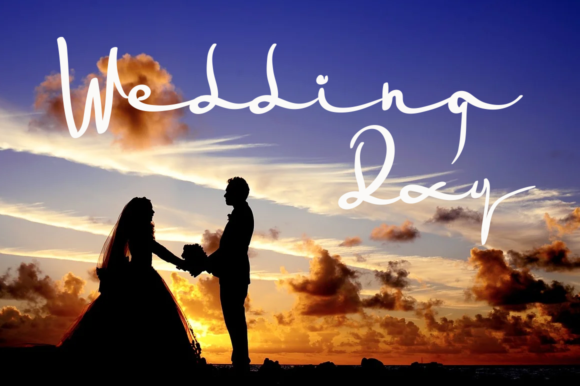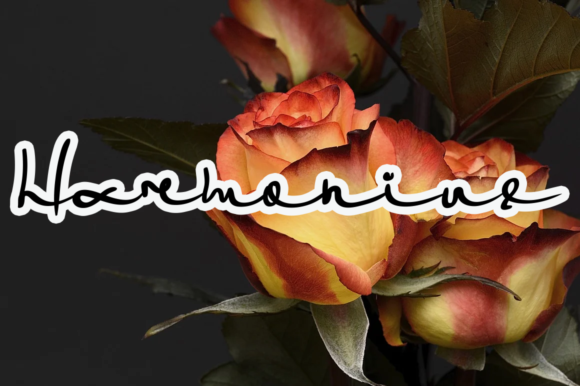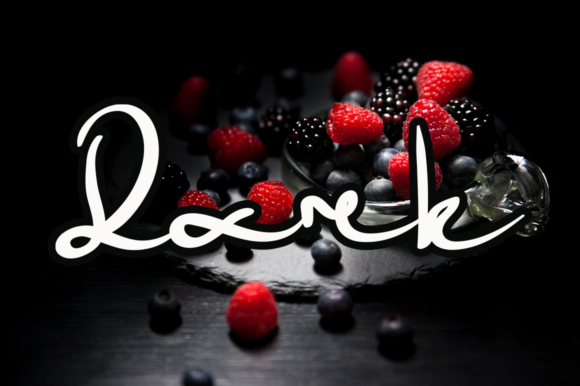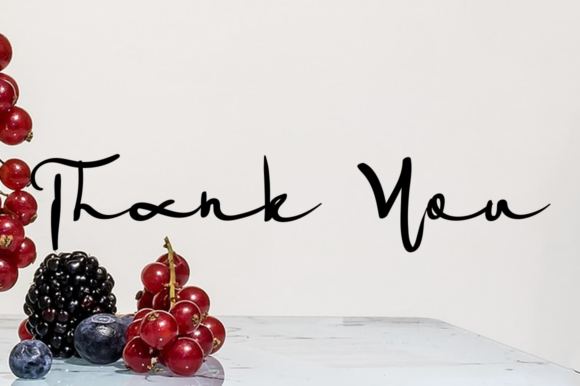
Billion Font: Elevate Your Designs with a Stylish and Delicate Touch
In the world of design, typography plays a crucial role in conveying the message and aesthetic of a project. With the vast array of fonts available, finding the perfect one that adds a touch of elegance and sophistication can be a daunting task. However, if you’re looking for a font that exudes style, delicacy, and a clean vibe, look no further than the Billion Font.
What is Billion Font?
Billion Font is a modern, stylish, and delicate font that has been making waves in the design community. Its clean, thin, and smooth lines make it an incredibly versatile font that can be used for a wide range of design projects. Whether you’re working on a branding campaign, a website, or a craft project, Billion Font is sure to elevate your creation and add a touch of sophistication.
Key Features of Billion Font
So, what makes Billion Font so special? Here are some of its key features:
- Clean and Thin Lines: Billion Font boasts clean and thin lines that give it a sleek and modern look. This makes it perfect for designs that require a touch of elegance and sophistication.
- Smooth Vibe: The font has a smooth vibe that makes it easy to read and visually appealing. This is especially important for designs that require a high level of legibility.
- Versatility: Billion Font is incredibly versatile and can be used for a wide range of design projects. Whether you’re working on a logo, a website, or a craft project, this font is sure to fit the bill.
- Elegance: The font exudes elegance and sophistication, making it perfect for designs that require a high level of refinement.
Why Choose Billion Font?
With so many fonts available, why choose Billion Font? Here are just a few reasons:
- Elevate Your Designs: Billion Font has the potential to elevate any design project and add a touch of sophistication.
- Easy to Read: The font is easy to read, making it perfect for designs that require a high level of legibility.
- Unique Look: Billion Font has a unique look that sets it apart from other fonts. Its clean and thin lines make it a standout in any design project.
- Multi-Purpose: The font can be used for a wide range of design projects, making it a valuable addition to any designer’s font library.
How to Use Billion Font in Your Designs
So, how can you use Billion Font in your designs? Here are a few ideas:
- Branding Campaigns: Use Billion Font to add a touch of elegance and sophistication to your branding campaigns.
- Websites: The font is perfect for websites that require a high level of legibility and a touch of style.
- Craft Projects: Billion Font can be used for a wide range of craft projects, from card making to scrapbooking.
- Graphic Design: The font can be used for a wide range of graphic design projects, from brochures to posters.
In conclusion, Billion Font is a stylish and delicate font that is sure to elevate any design project. Its clean, thin, and smooth lines make it a versatile font that can be used for a wide range of design projects. Whether you’re a designer, crafter, or DIY enthusiast, Billion Font is a valuable addition to your font library. So why not give it a try and see the difference it can make in your designs?